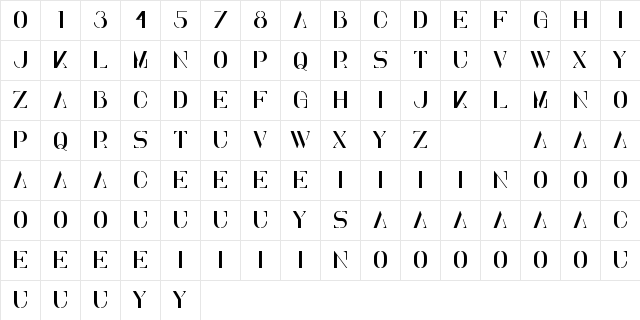
Elena Regular Font Preview
Elena Regular
Elena Regular Font Details
Design Context for Elena Typeface
Elena takes a measured approach to typography — its balanced proportions and neutral character make it a reliable workhorse for both digital and print work.